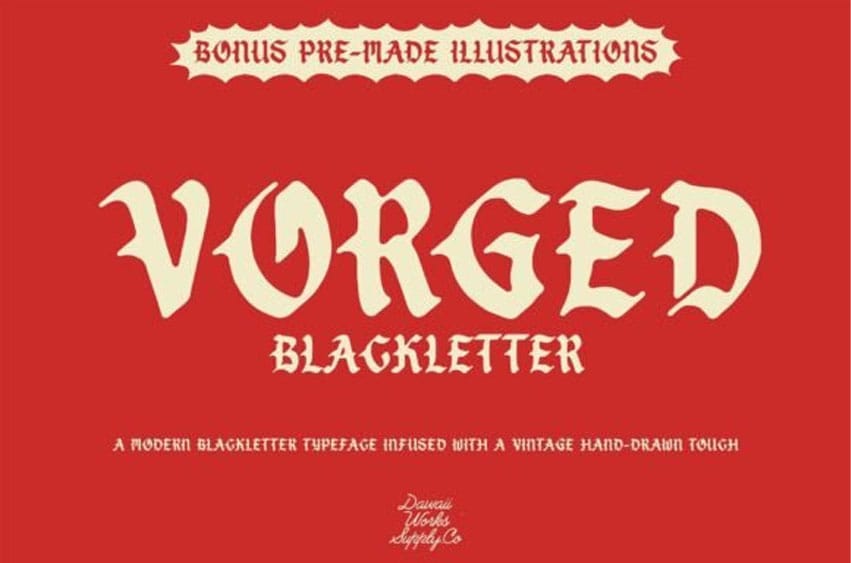
Vorged Font is a hand-drawn, vintage-inspired blackletter font that exudes both boldness and sophistication. Its intricate letterforms are meticulously designed to capture the essence of Old World craftsmanship while seamlessly blending with modern aesthetics.
Bonus Feature: The font package includes a collection of Oldschool Tattoo Illustrations—classic designs perfectly complementing the vintage theme of the font. Each illustration is drawn with the same attention to detail, enhancing the font’s versatility for tattoo-inspired artwork, merchandise, and retro designs.